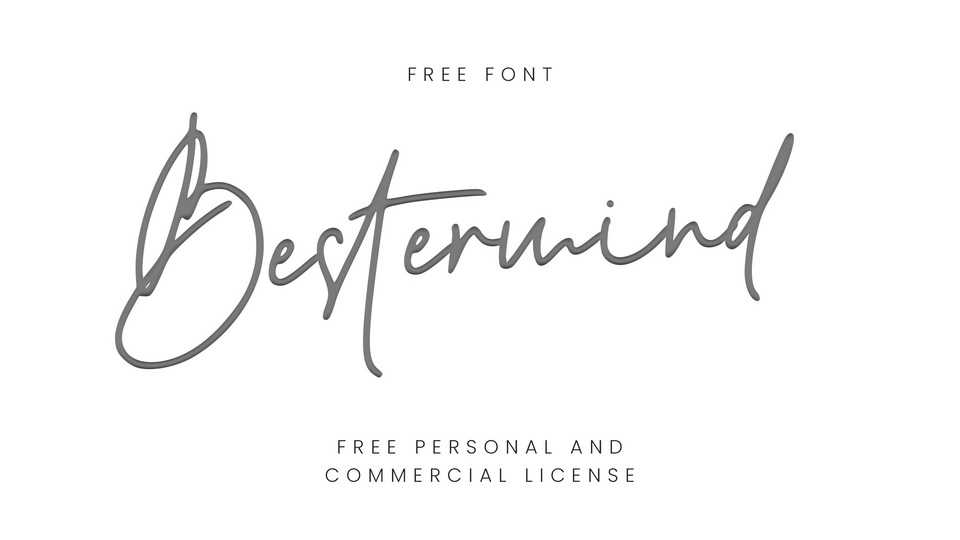
Download Bestermind font, a stylish and dynamic handwritten font. Bestermind is the best choice for creating eye catching logos, branding and quotes.
Designer: Thirtypath